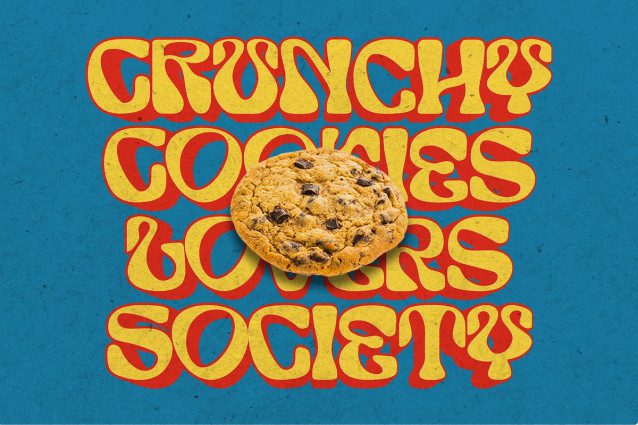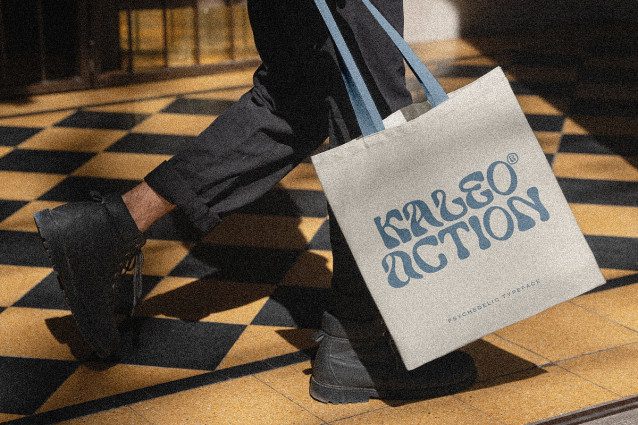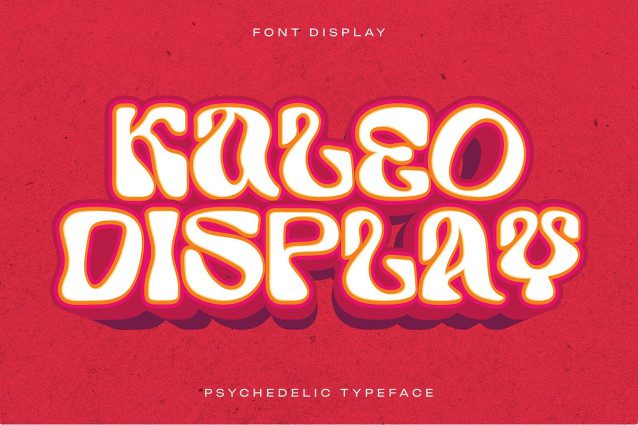
Kaleo Font
Kaleo Font is a bold and trippy psychedelic display typeface inspired by the vibrant poster art of the late 60s and 70s. With its fluid letterforms and groovy curves, Kaleo brings a nostalgic yet fresh energy to any design. Perfect for album covers, branding, posters, and packaging that dares to stand out with bold character and retro attitude.